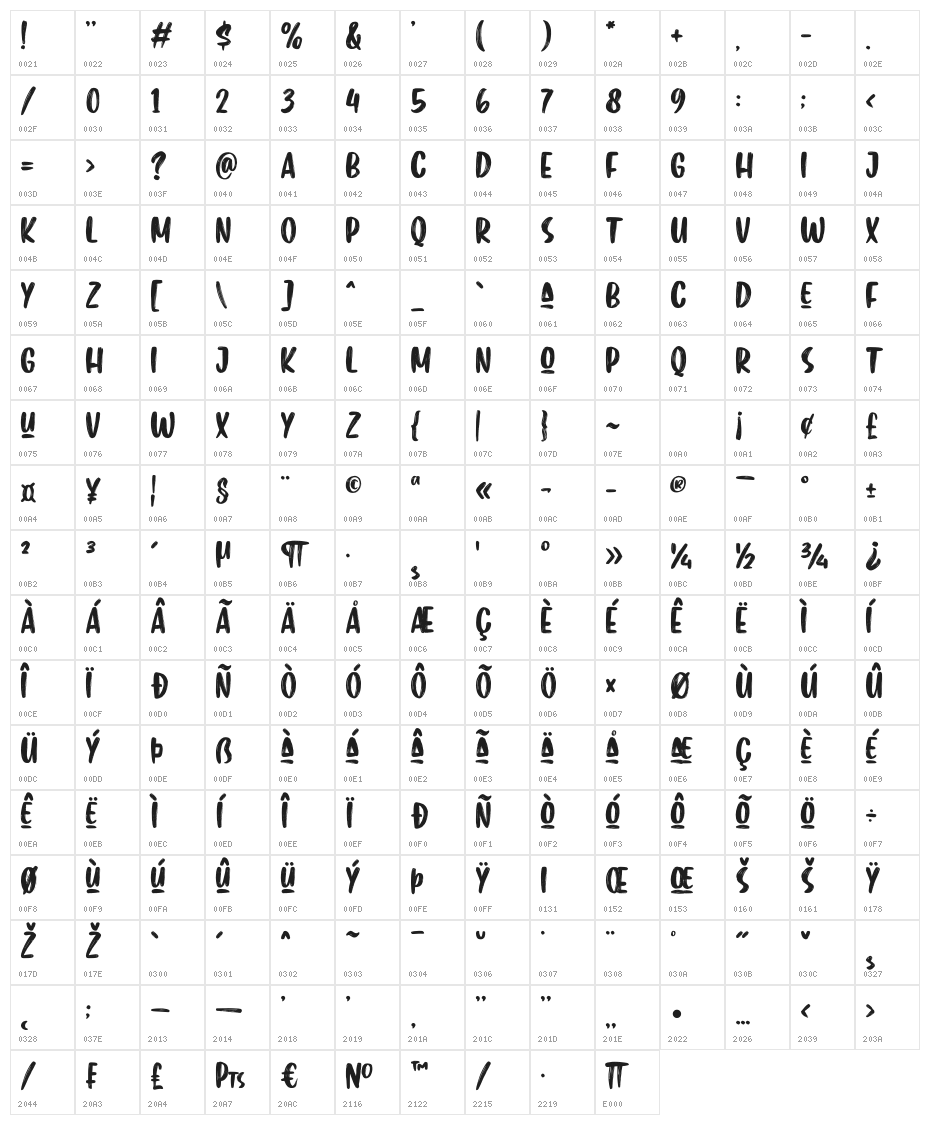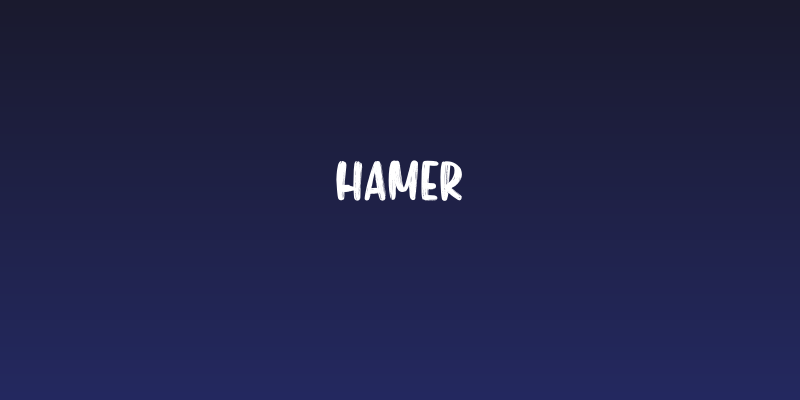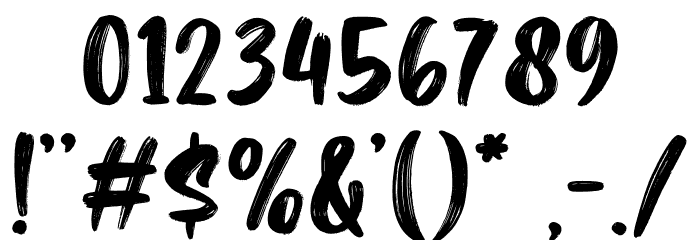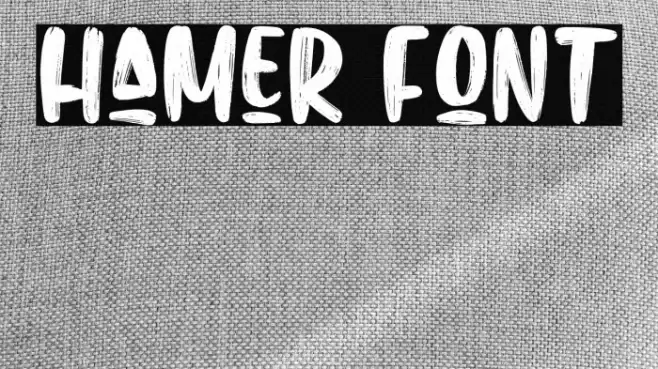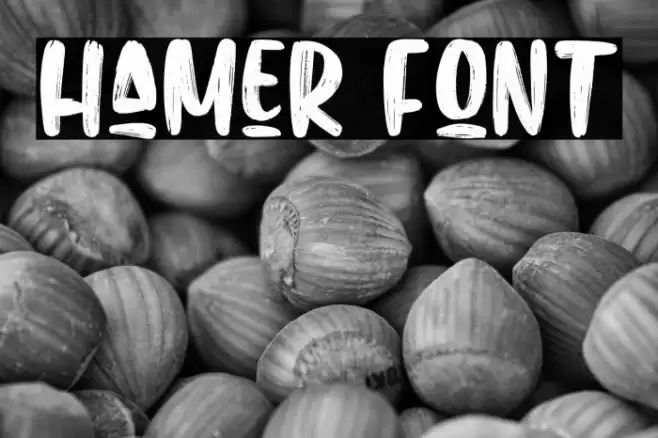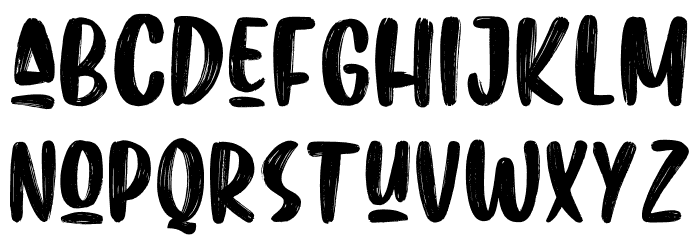
Hamer Font
Hamer Description
This font features a bold, brush-like style with a hand-painted appearance. The strokes are thick and dynamic, giving each character a sense of movement and energy. The letters have a slightly irregular form, adding to the handcrafted feel. The uppercase and lowercase letters maintain a consistent style, with rounded edges and varying stroke widths that create a lively texture. The numbers and special characters follow the same aesthetic, ensuring a cohesive look across all elements. This font is perfect for projects that require a bold and artistic touch.